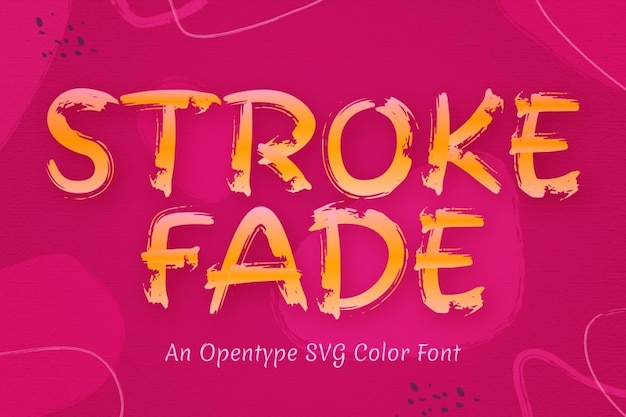
Stroke Fade
Stroke Fade Font
Stroke Fade is a retro-inspired font that mimics the effect of brush strokes gradually fading away. Each character carries a nostalgic charm, reminiscent of hand-painted signs from yesteryears. Perfect for vintage-themed designs, posters, or branding projects, Stroke Fade adds a touch of artistic flair and old-school authenticity to your text, making it stand out with its unique brushstroke style.